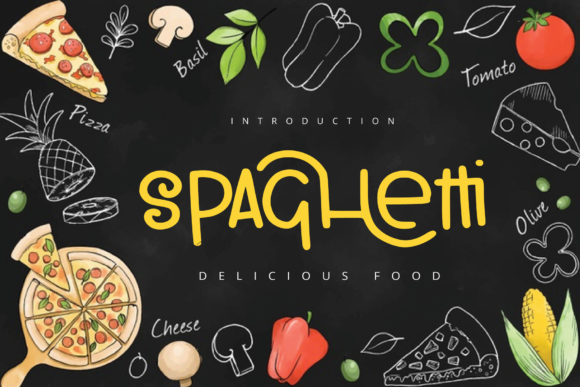
Dive into the captivating world of Spaghetti Font, a script font family that will add a touch of elegance and charm to your creative projects. Whether you're designing logos, crafting invitations, or creating social media graphics, Spaghetti Font is the perfect choice for making a statement.
With its smooth curves and graceful lines, Spaghetti Font exudes a timeless beauty that will elevate your designs to new heights. The font's delicate strokes and intricate details give it an organic feel, making it perfect for projects with a natural or vintage aesthetic.
But don't let its classic appearance fool you – Spaghetti Font is also incredibly versatile. Its wide range of weights and styles allows you to create a variety of looks, from delicate and airy to bold and impactful. Whether you're looking for a font that will blend seamlessly into your design or one that will demand attention, Spaghetti Font has you covered.
One of the things that makes Spaghetti Font truly special is its ease of use. This font is PUA encoded, which means you can easily access all of its glyphs and swashes with a few simple clicks. This makes it perfect for designers of all skill levels, whether you're a seasoned pro or just starting out.